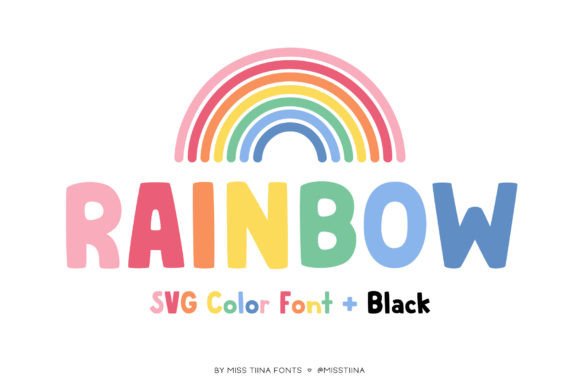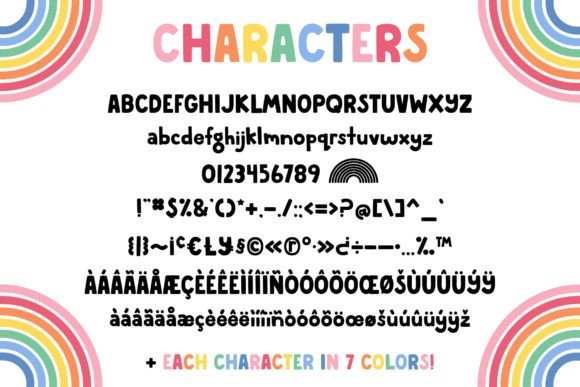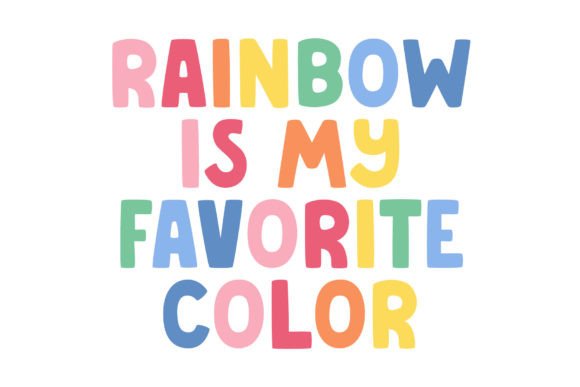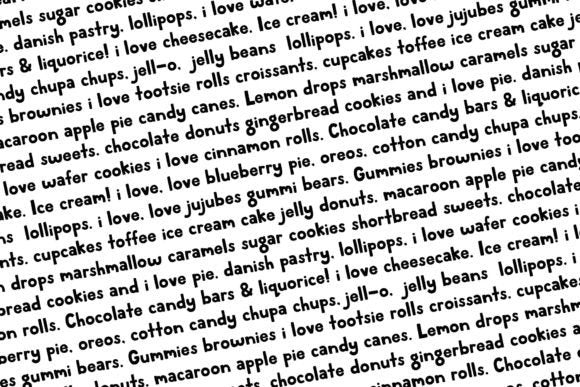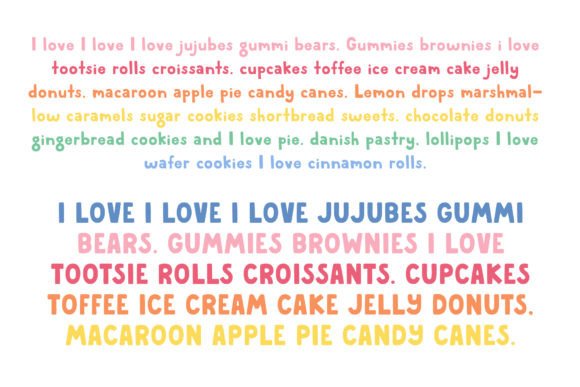
Rainbow Font
Rainbow SVG Color Font + Black is sure to bring happiness and joy to any project with its playful charming characters! It has 7 different colors included (accessible by alternates) plus black in every letter. It’s perfect for posters, t-shirts, home decor, planners, kids’ projects and so much more!